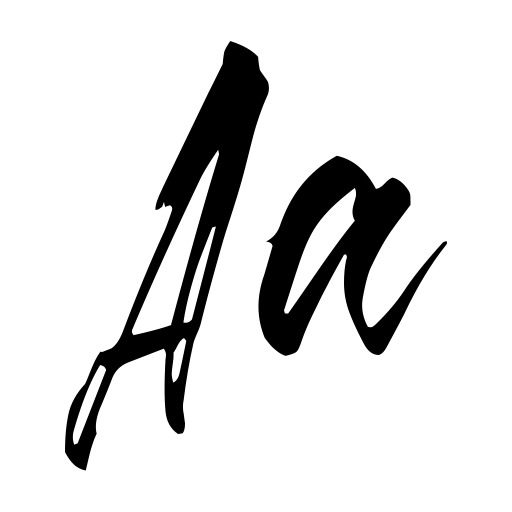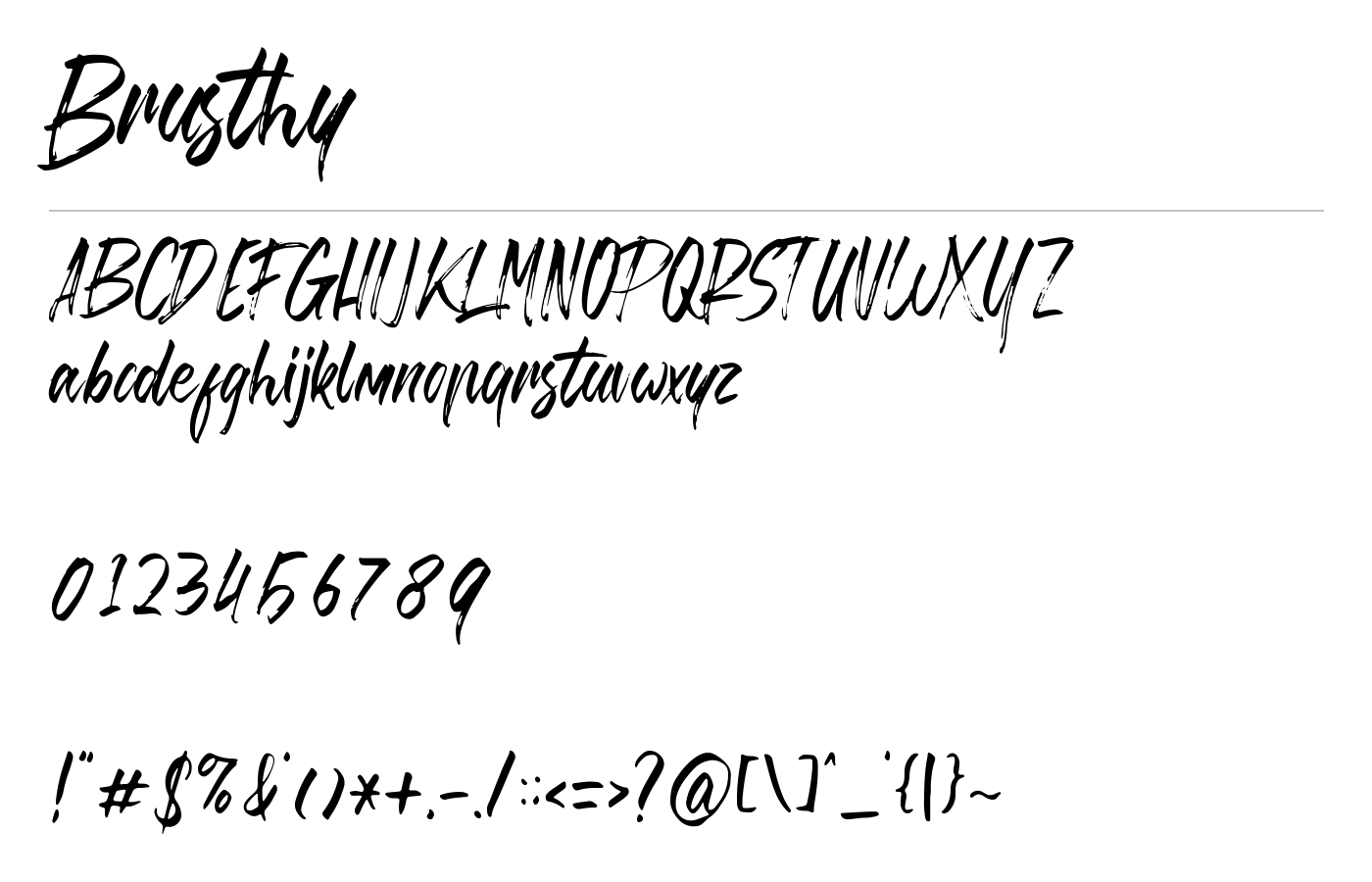
Brusthy is a lively and dynamic brush script font with a bold, hand-painted feel that adds a personal, artistic touch to any design. Its tall, narrow letterforms and textured strokes create an energetic, casual vibe perfect for creative branding, modern invitations, and eye-catching headlines. This font works especially well where a natural, handcrafted style is desired to convey warmth and authenticity.
Brusthy Font
About Brusthy Font
| Font family | Brusthy Font |
| Designer | Ardyanatypes |